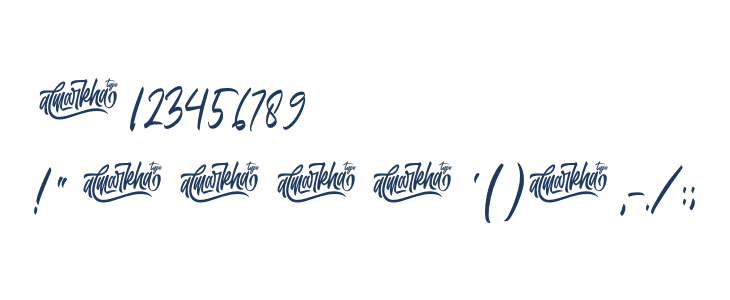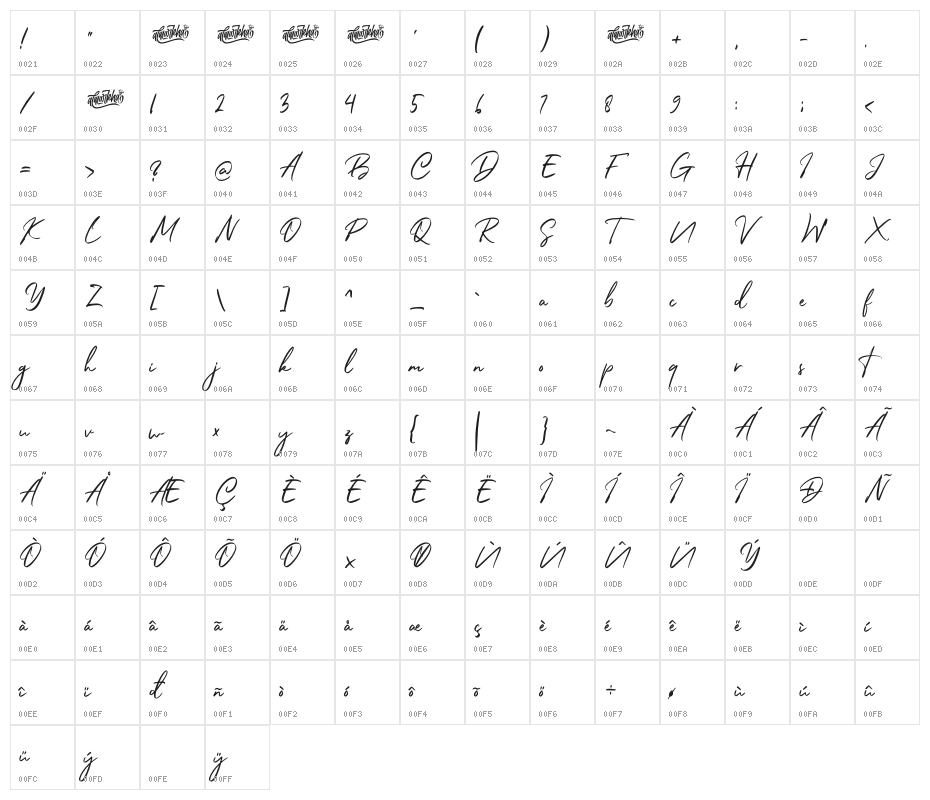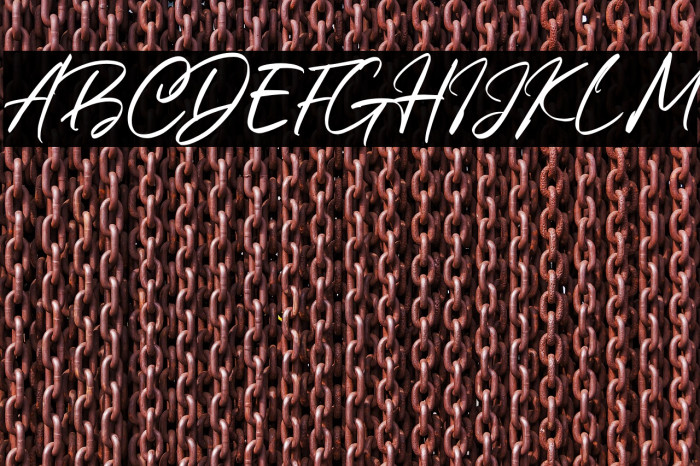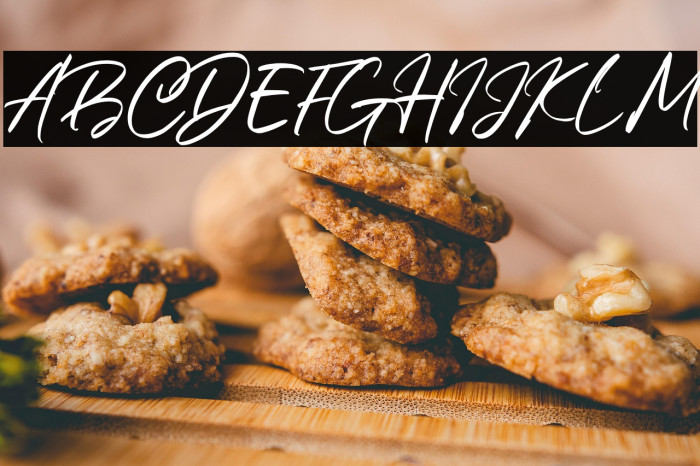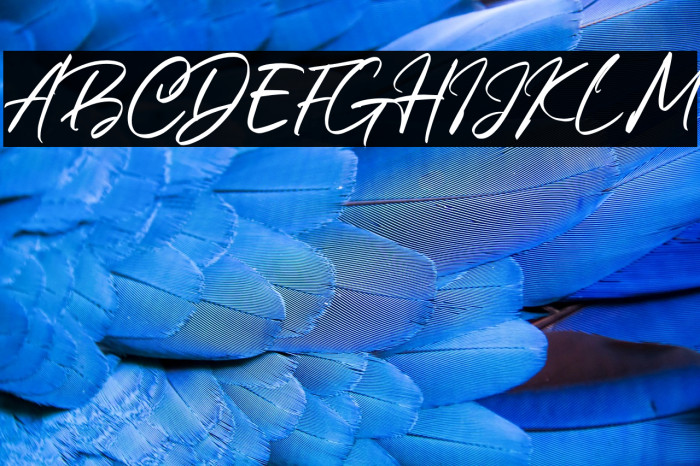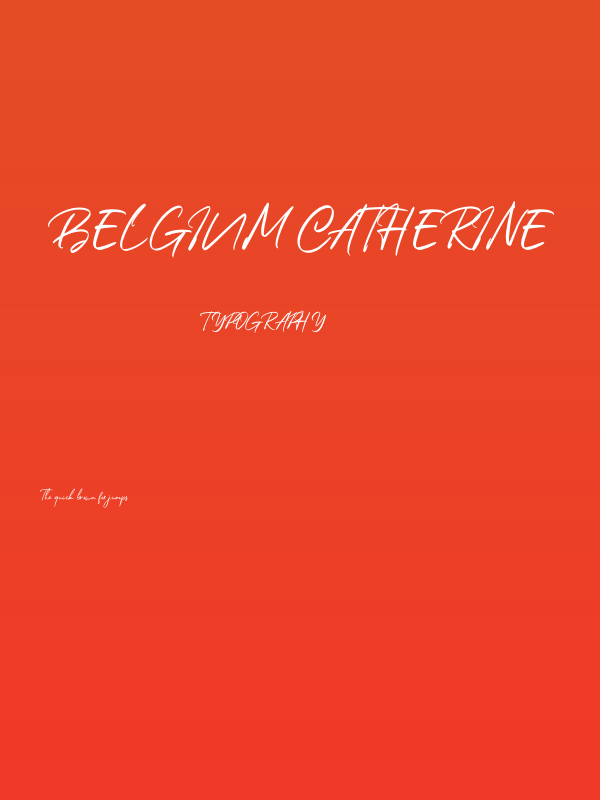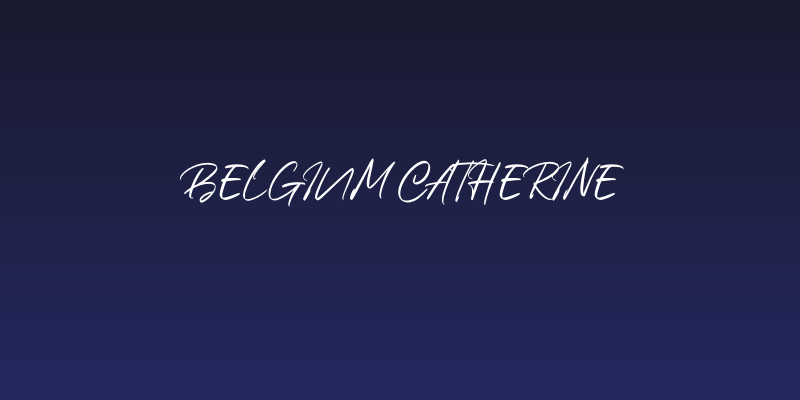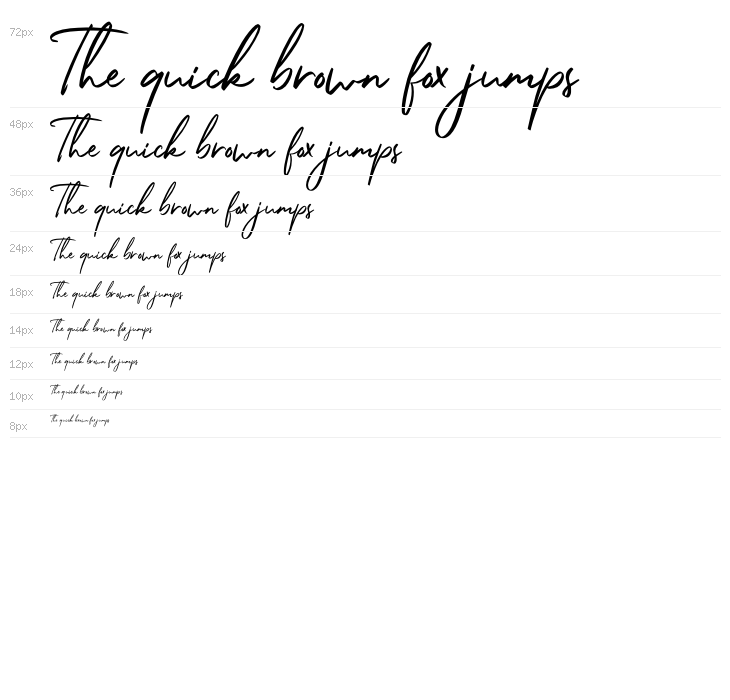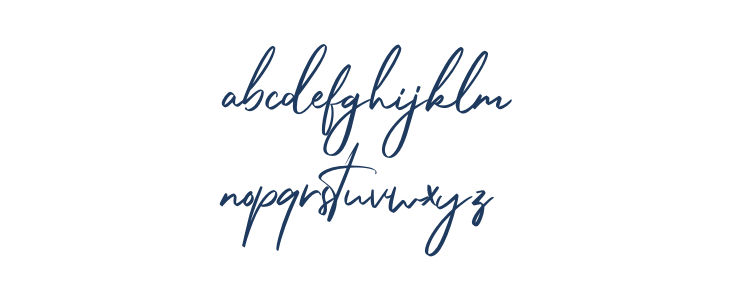
Belgium Catherine Font
Belgium Catherine Description
This font exhibits a dynamic and fluid script style, characterized by its elegant and flowing letterforms. The uppercase letters are bold and sweeping, with a sense of movement that suggests a handwritten quality. The lowercase letters maintain this fluidity, with some characters featuring distinctive loops and flourishes that add to the overall decorative appeal. The numerals are consistent with the script style, offering a cohesive look across all characters. Special characters are included, maintaining the same stylistic elements, which makes this font versatile for creative projects. The overall impression is one of sophistication and artistic flair, suitable for applications that require a personal and stylish touch.
| Proposed Projects | Ideal for wedding invitations, branding, greeting cards, and other creative projects that require a personal touch. |